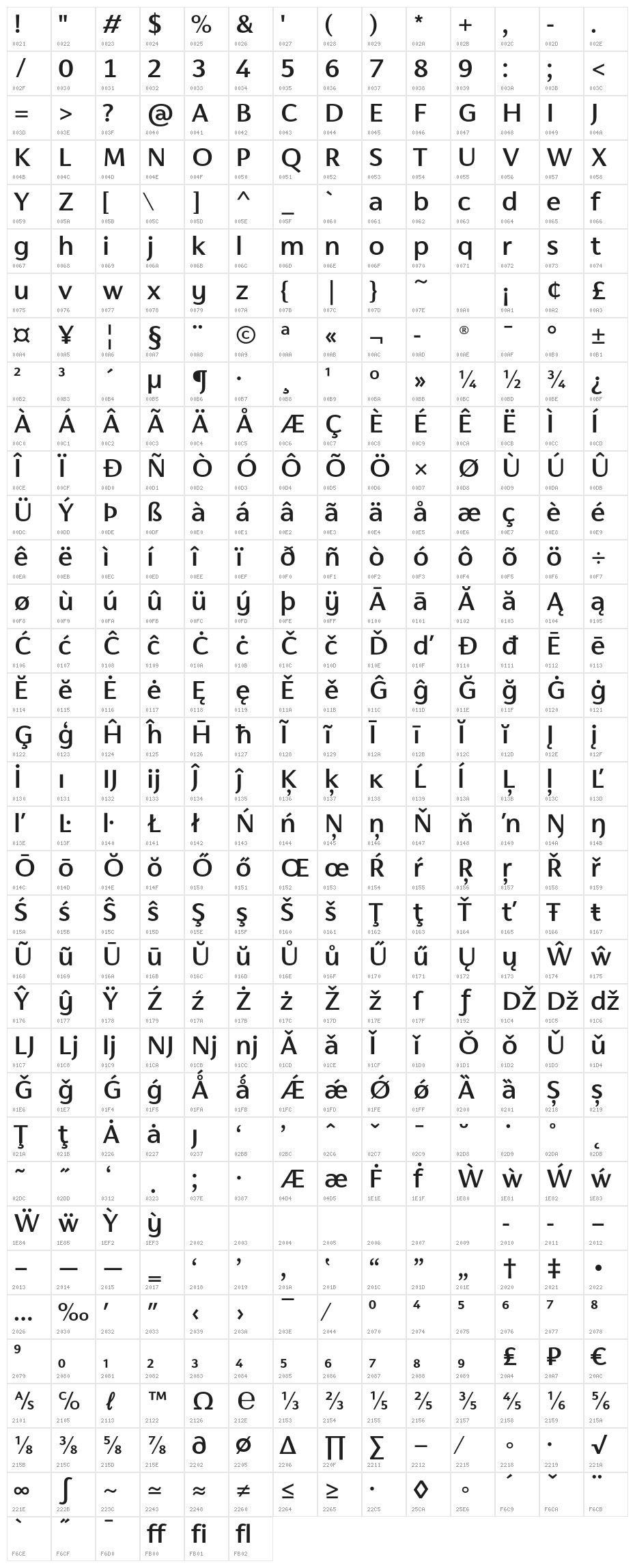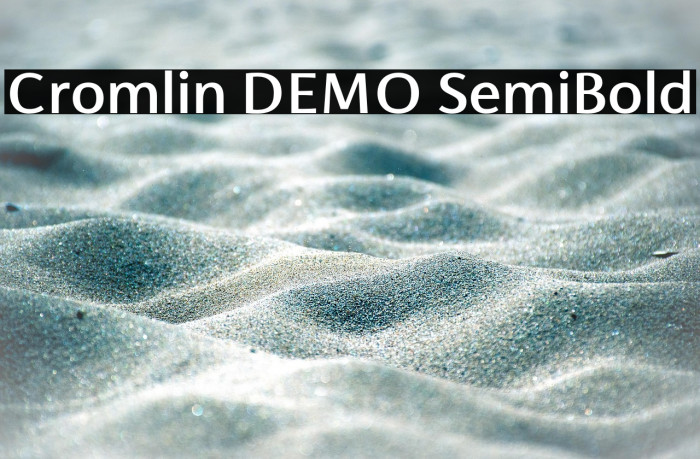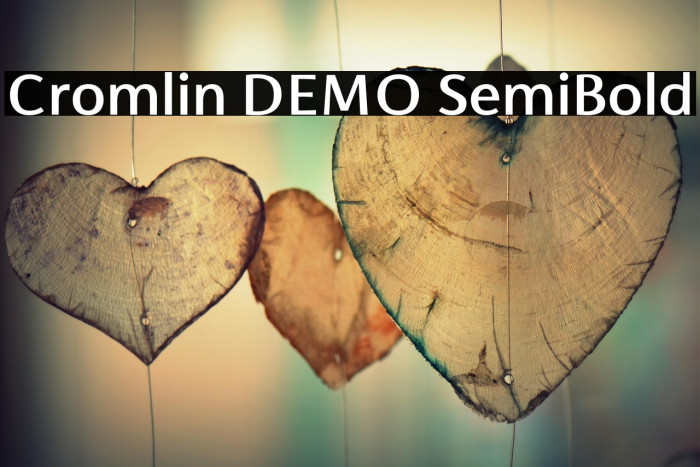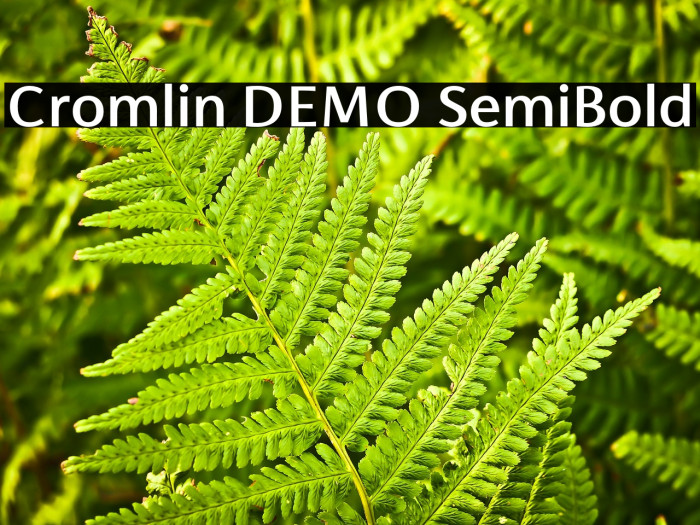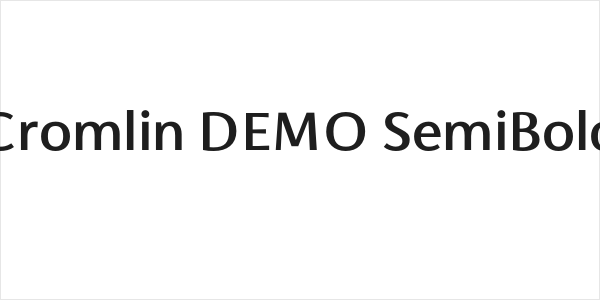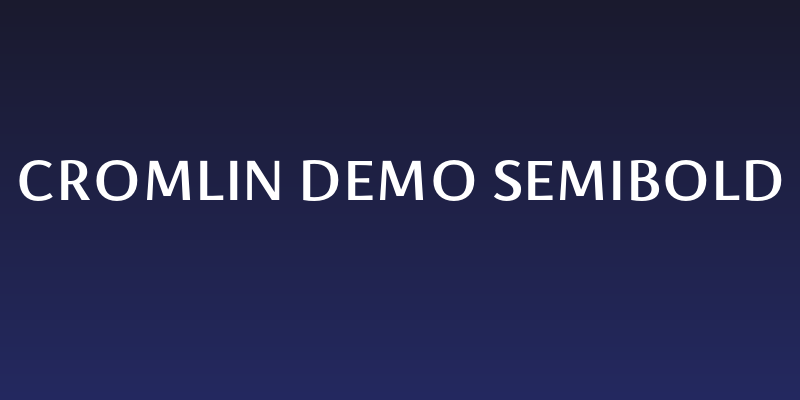
Cromlin DEMO SemiBold Font
Cromlin DEMO SemiBold Description
This font presents a clean and modern sans-serif style, characterized by its semi-bold weight that provides a strong yet approachable appearance. The characters are well-proportioned with a consistent stroke width, contributing to its readability across various sizes. The uppercase letters are slightly taller than the lowercase, offering a balanced contrast. The numerals are clear and distinct, making them suitable for both digital and print media. Special characters are designed with the same attention to detail, ensuring they integrate seamlessly with the rest of the typeface.